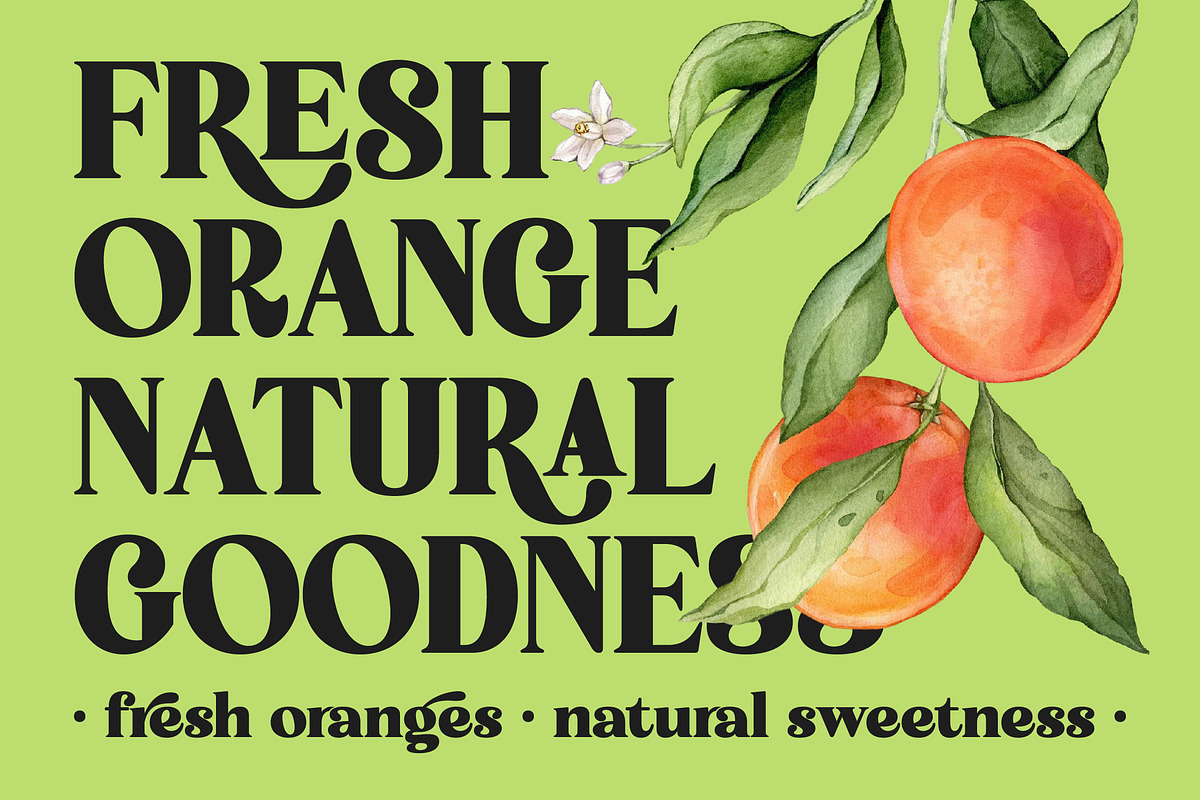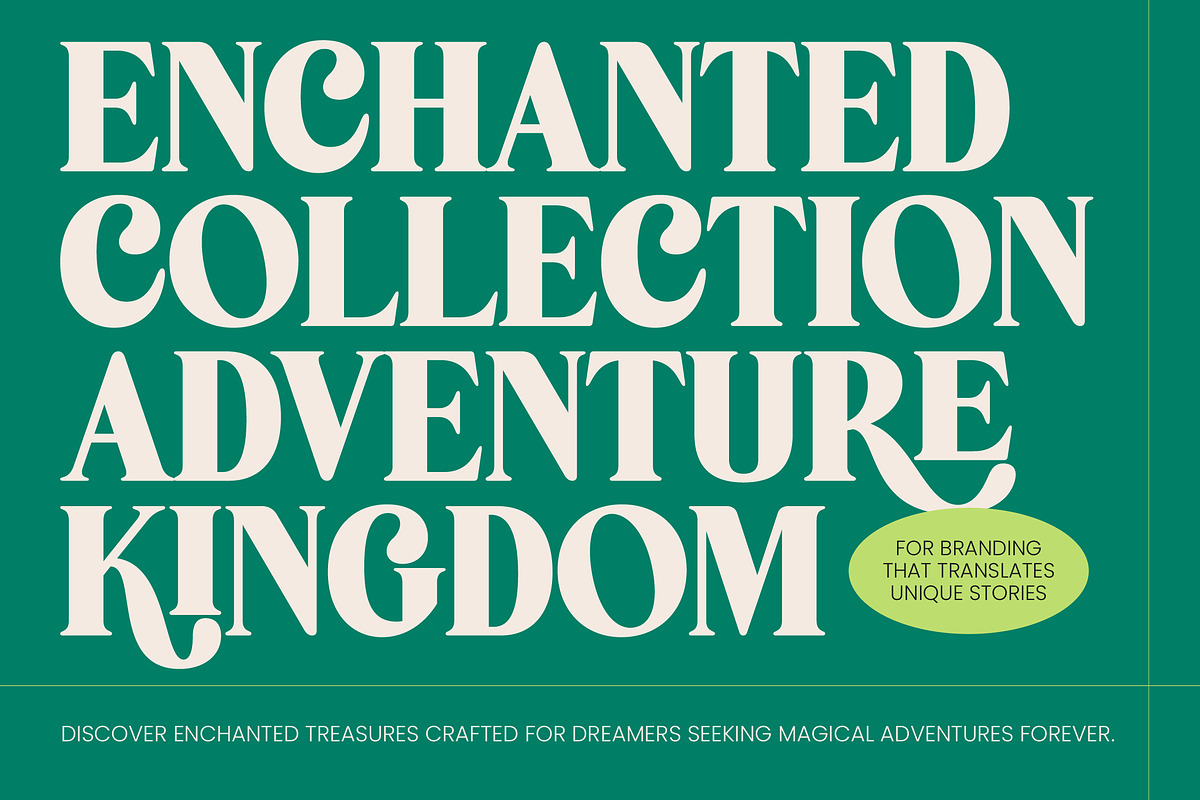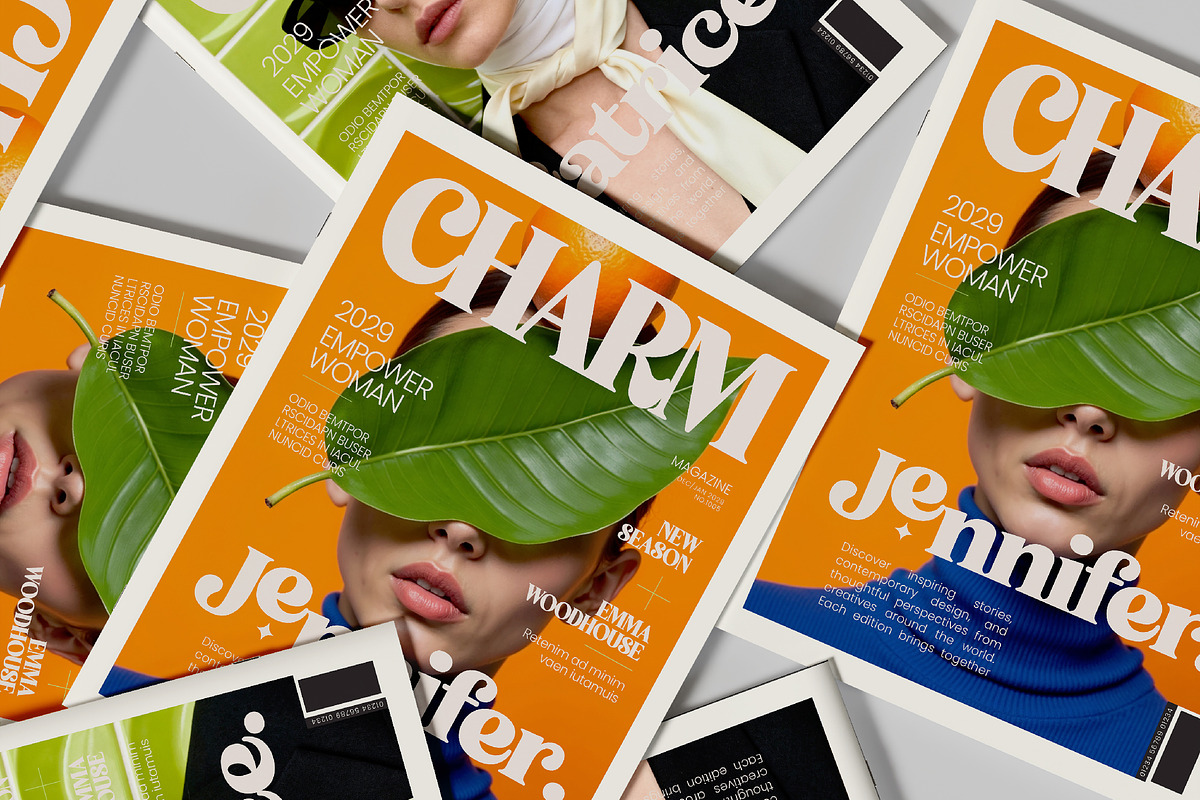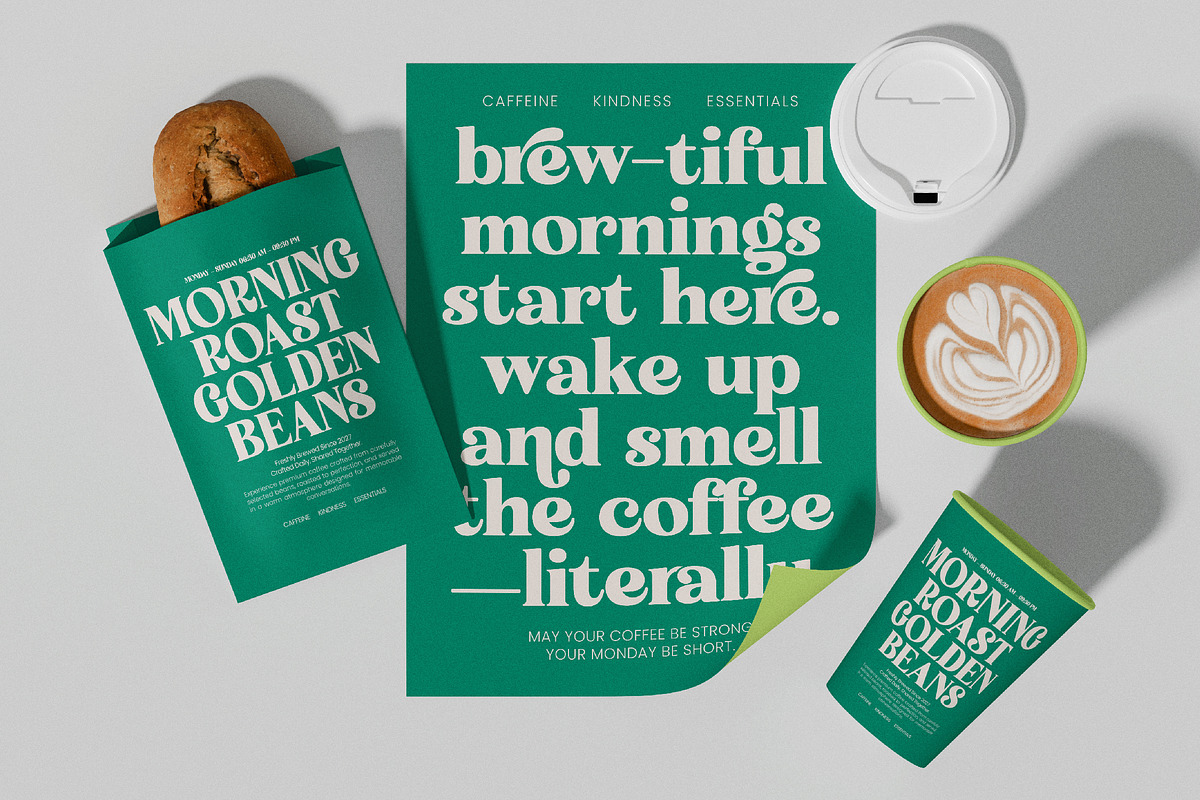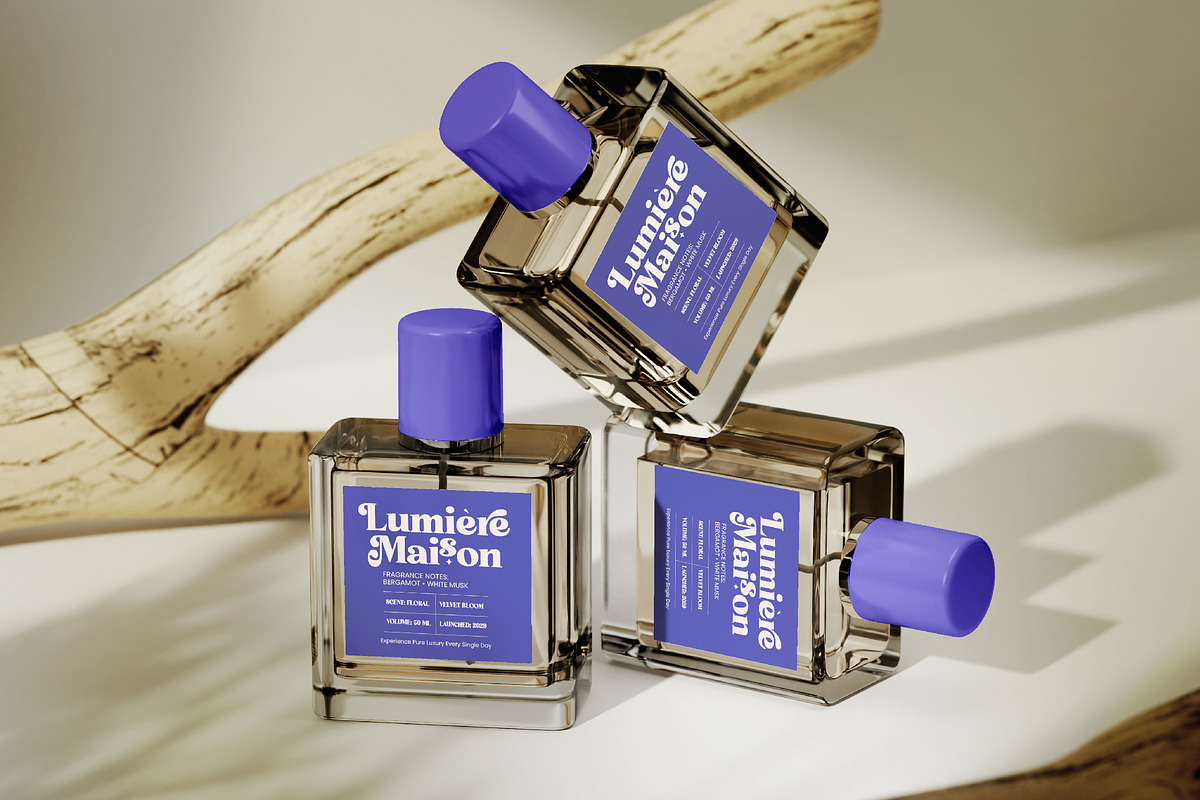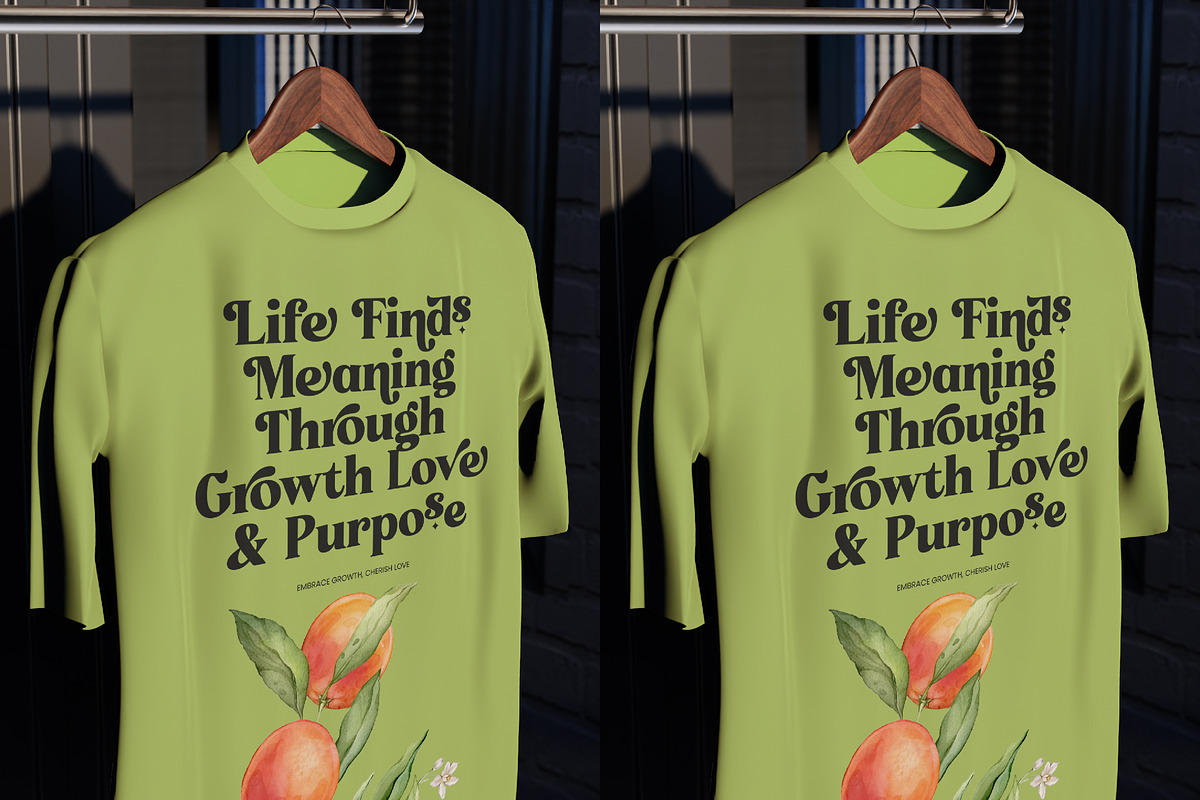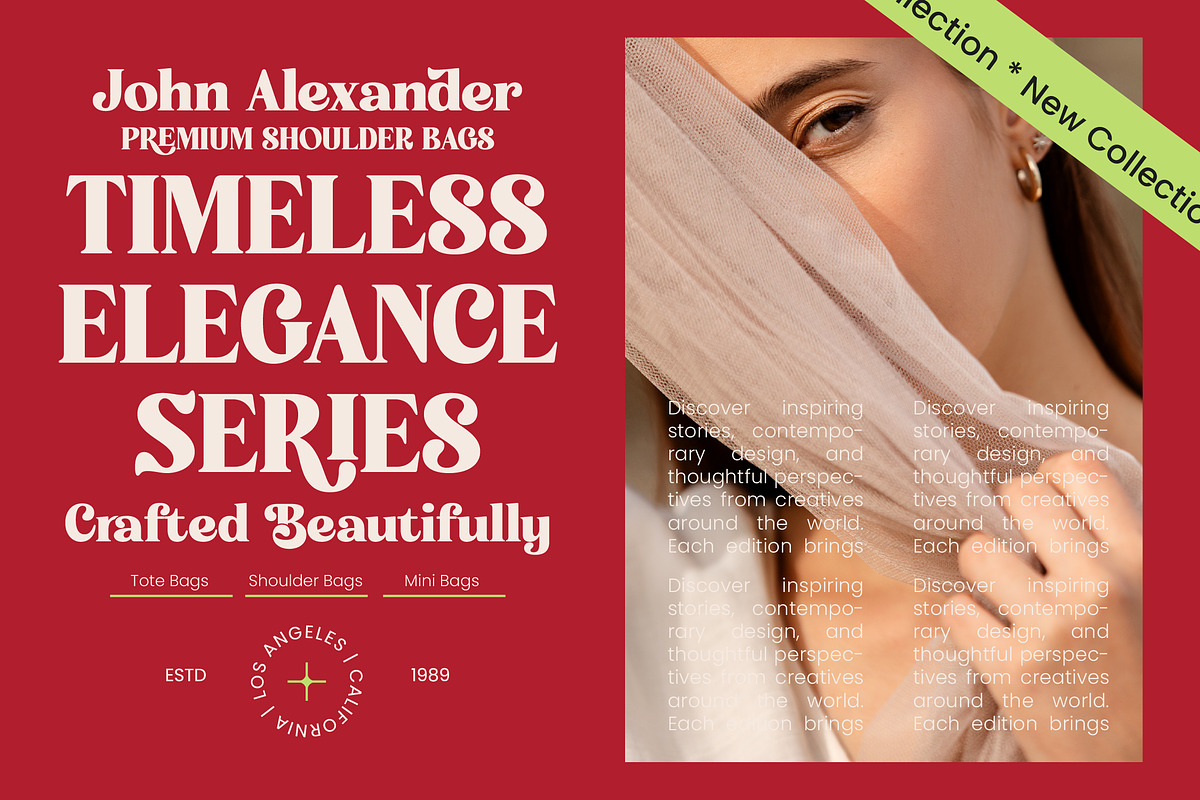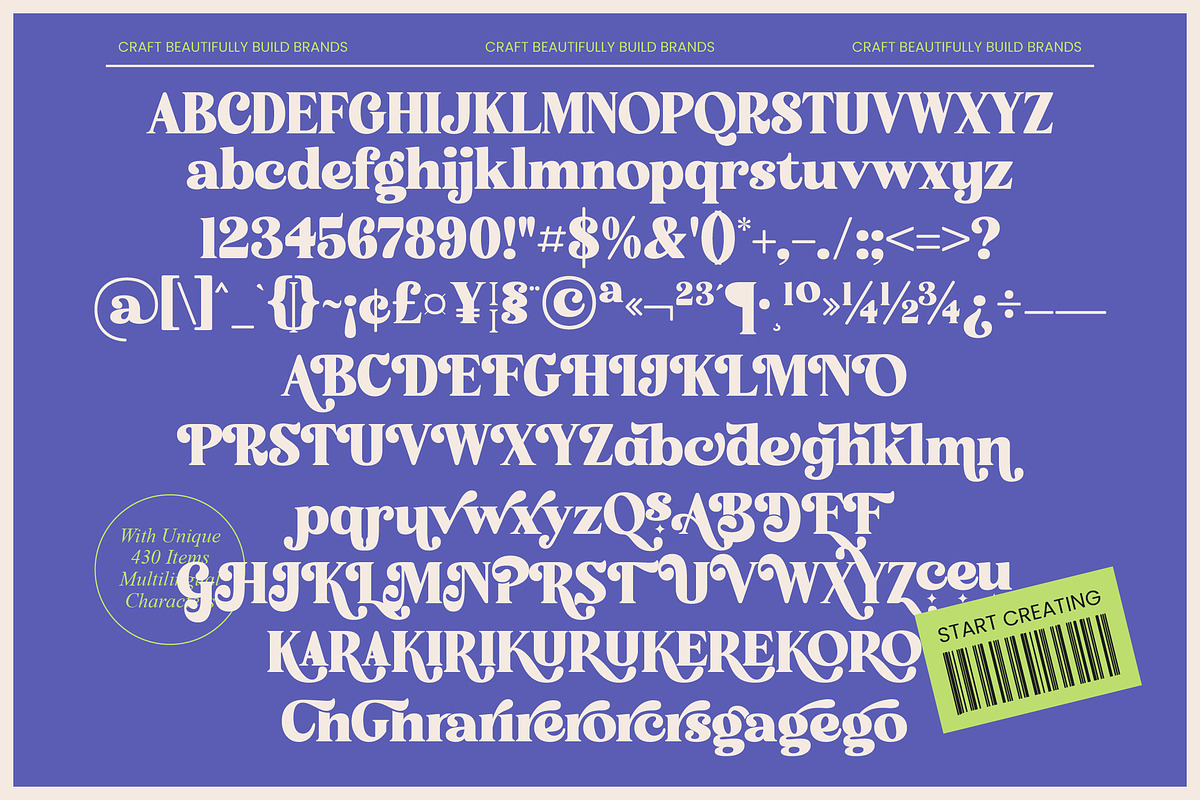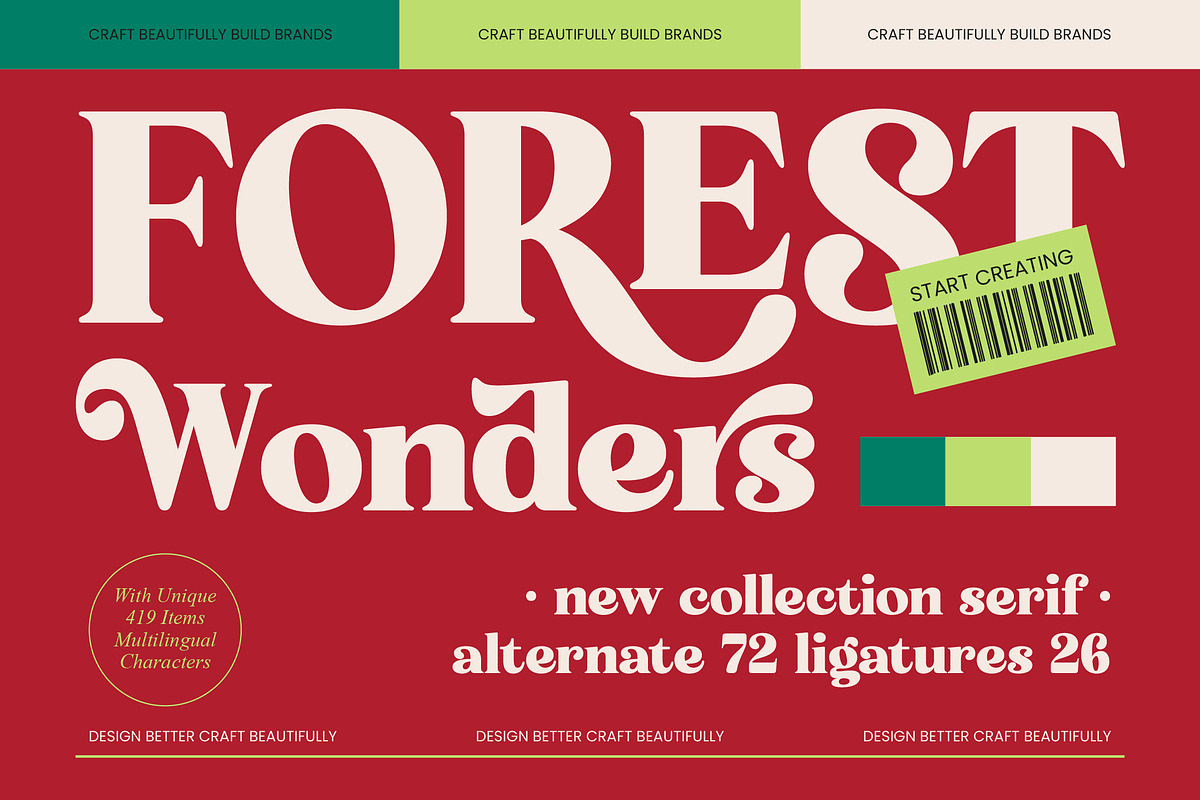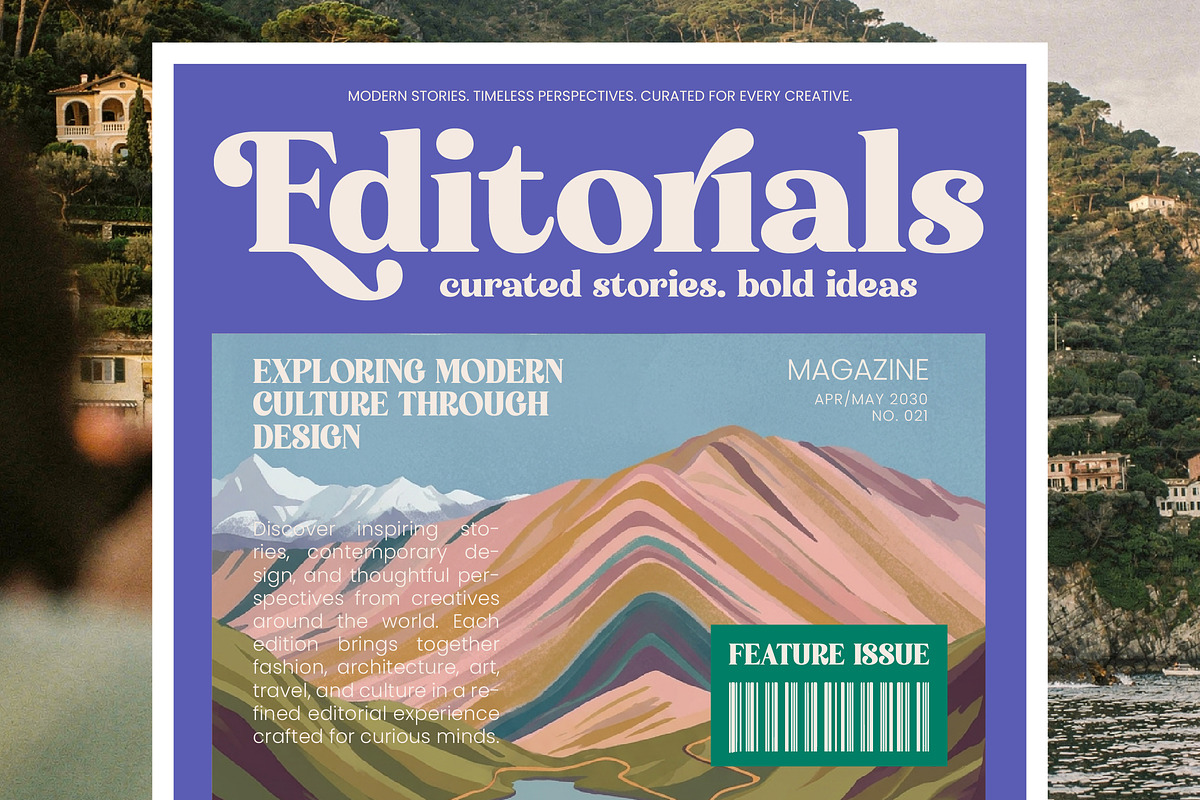
Forest Wonders New Collection Serif
Forest Wonders - New Collection Serif , Elevate your creative vision with a typeface that bridges the gap between classic elegance and contemporary flair. Forest Wonders - New Collection Serif is a masterpiece of high-contrast typography, characterized by its sophisticated serifs and organic curves that command attention. This premium font offers a unique aesthetic essence that balances professional authority with a touch of whimsical charm, making it an essential addition to any designer's toolkit.
Precision meets versatility in this meticulously crafted font family designed for demanding professionals seeking a refined visual impact. Featuring an expansive character set with 72 unique alternates and 26 decorative ligatures, it allows for endless creative customization. With its extensive multilingual support, Forest Wonders - New Collection Serif adapts seamlessly across global markets, making it incredibly versatile for international projects and diverse communication needs.
Redefine the visual identity of high-end brands through a font that exudes authority and grace in every stroke. Forest Wonders - New Collection Serif is the perfect choice for luxury branding, editorial design, and high-end packaging where a distinctive personality is paramount. Whether utilized for lifestyle magazines or couture logo design, its timeless appeal ensures your message resonates with a sophisticated audience.
Transform every project into a timeless work of art with this essential typographic tool that thrives in modern design. Forest Wonders - New Collection Serif is more than just a font; it is a comprehensive design solution for modern storytellers seeking a premium aesthetic. By integrating this versatile serif into your digital or print medium, you guarantee a high-end finish that stands out in a crowded marketplace.